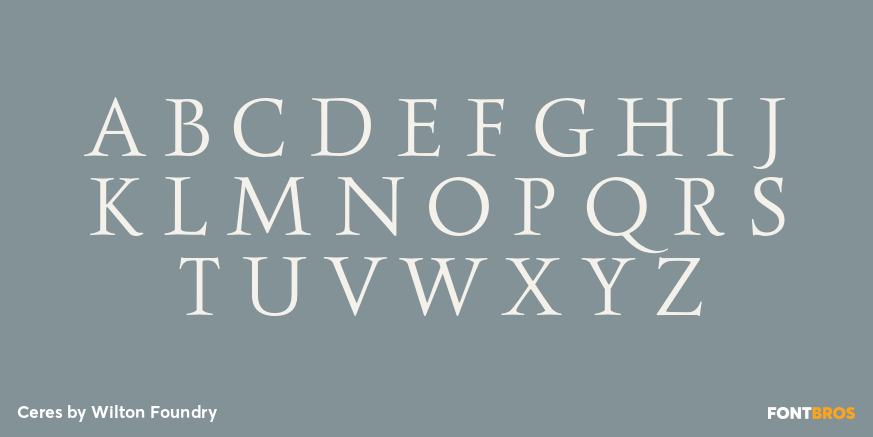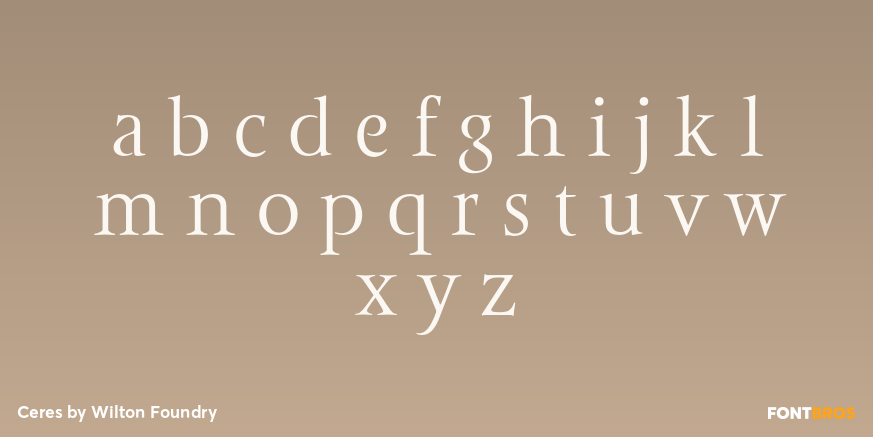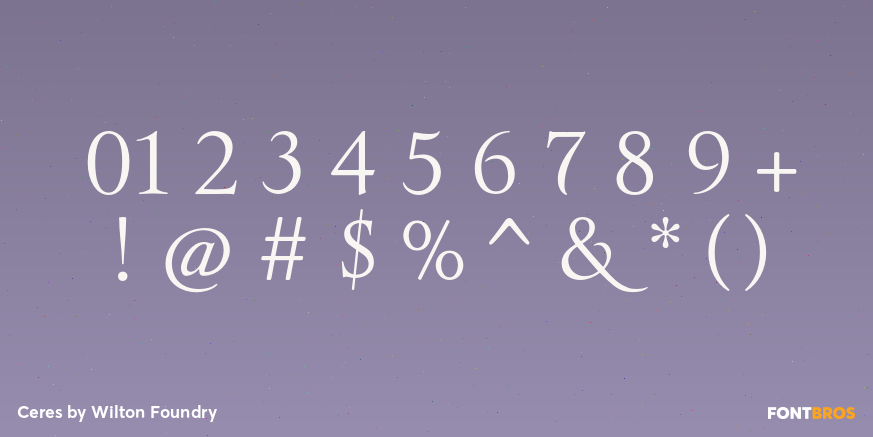
Ceres
Font Family by Wilton Foundry
Ceres is has its roots in Cyan, our other font family. Like Cyan, Ceres has a complementary lowercase that provides more versatility than a classic Roman. It is arguably more elegant than Cyan with its accentuated serifs. The lowercase "e" and "g" give Ceres a distinct calligraphic personality.